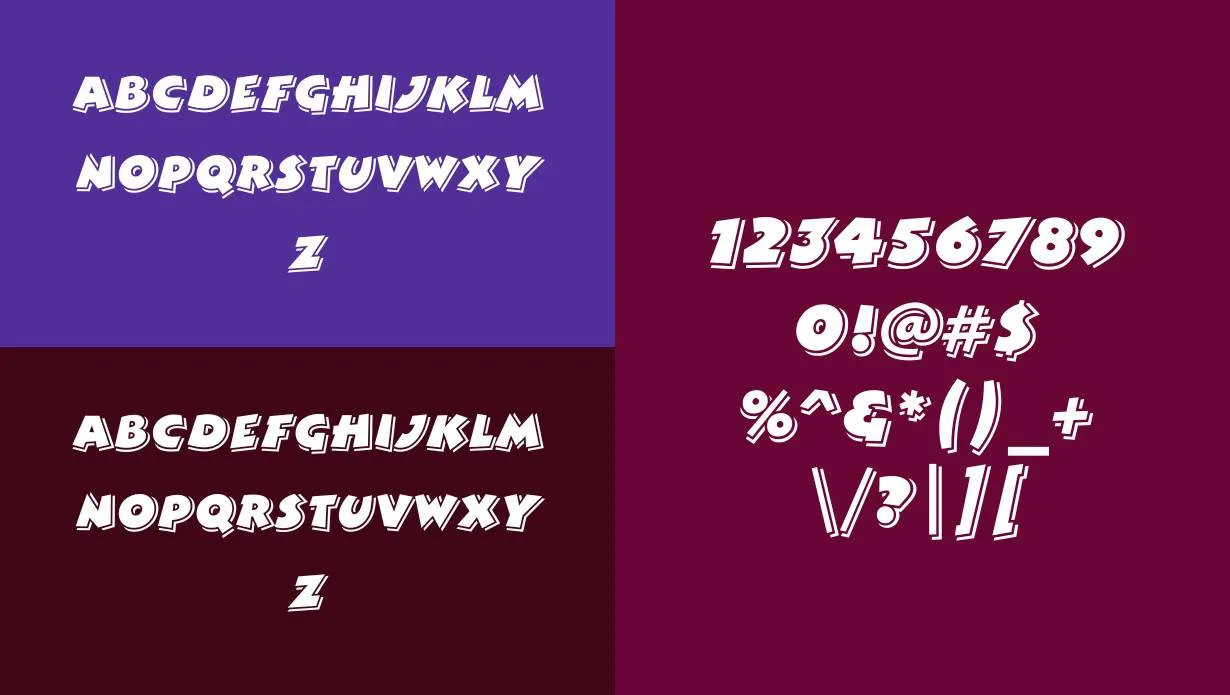
The Bertram font exudes a classic and elegant vibe, evoking a sense of sophistication often associated with formal invitations or refined documents. Its timeless appearance makes it an excellent choice for enhancing the elegance of book covers or creating stylish titles.
| Name | Bertram Font |
| Designer | Martin Wait |